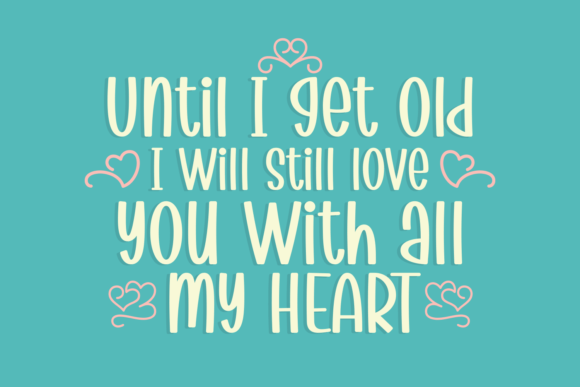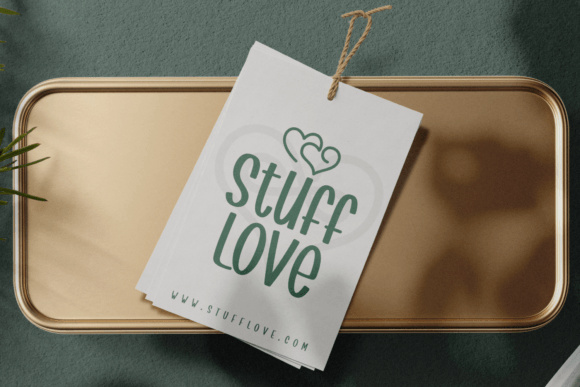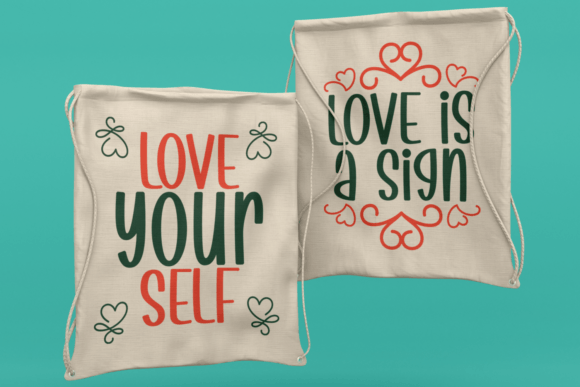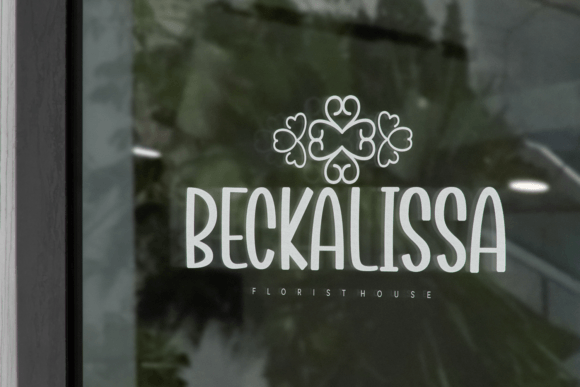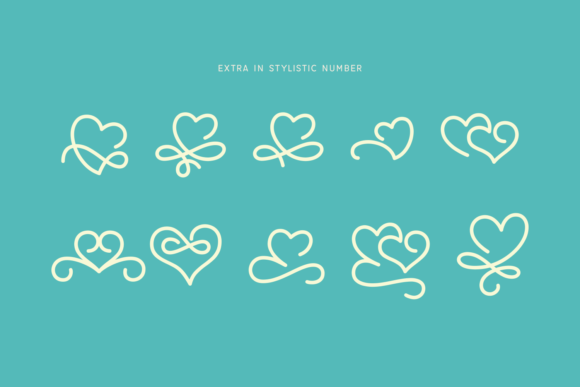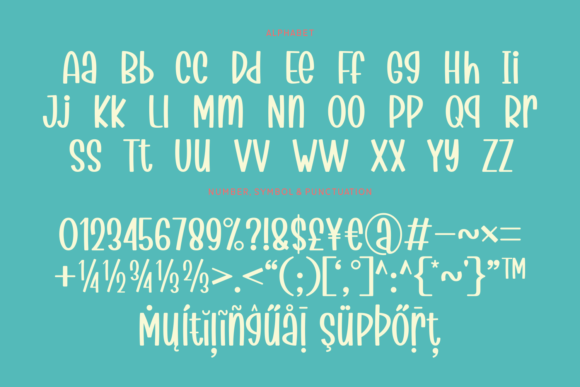
Discover the Charm of Barlyna Kutiena Font: A Cute and Versatile Handwritten Font
Are you looking for a font that can add a touch of romance and whimsy to your design projects? Look no further than the Barlyna Kutiena font! This adorable handwritten font is perfect for designers and crafters who want to infuse their work with a dash of personality and charm.
What Makes Barlyna Kutiena Font So Special?
Barlyna Kutiena is a cute and charming handwritten font that boasts an adaptable look, making it suitable for a wide range of design projects. Whether you’re working on a wedding invitation, a branding campaign, or a DIY craft project, this font is sure to impress. Its unique and playful style is sure to capture the attention of your audience and leave a lasting impression.
Extra Heart Glyphs for Added Romance
One of the standout features of the Barlyna Kutiena font is its extra heart glyphs. These special characters allow you to add an extra touch of romance and whimsy to your designs, making it perfect for projects that require a bit of sweetness and charm. With these glyphs, you can create beautiful and eye-catching designs that are sure to capture the hearts of your audience.
Whether you’re a professional designer or a crafty DIY enthusiast, the Barlyna Kutiena font is perfect for you. Its versatility and charm make it suitable for a wide range of projects, from:
- DIY craft projects, such as card making and scrapbooking
- Blog and website design
Tips for Using Barlyna Kutiena Font
To get the most out of the Barlyna Kutiena font, here are a few tips:
- Experiment with different font sizes and colors to add visual interest to your designs
- Use the extra heart glyphs to add a touch of romance and whimsy to your projects
- Pair Barlyna Kutiena with other fonts to create a unique and eye-catching design
- Don’t be afraid to get creative and try new things – the Barlyna Kutiena font is versatile and adaptable, so have fun with it!